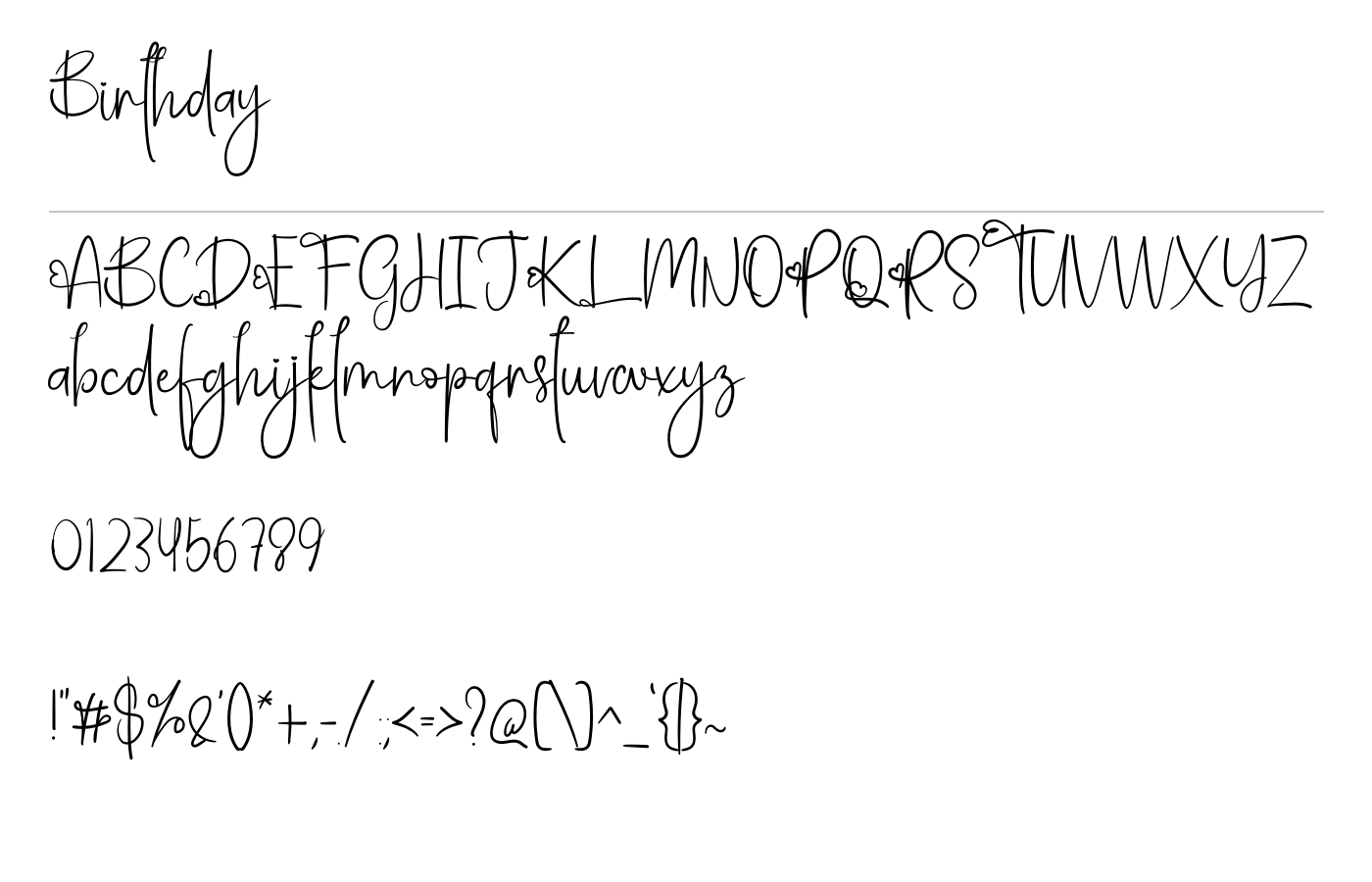
Birthday Font is a playful and whimsical handwritten script with tall, slender letterforms and charming heart-shaped details on some uppercase letters, giving it a light and airy feel. Its delicate, casual strokes and narrow width make it perfect for invitations, greeting cards, and designs that want to convey warmth and cheerfulness with a personal, handcrafted touch. This font works well in creative and festive contexts, adding a fun and friendly vibe without sacrificing legibility.
Birthday Font
About Birthday Font